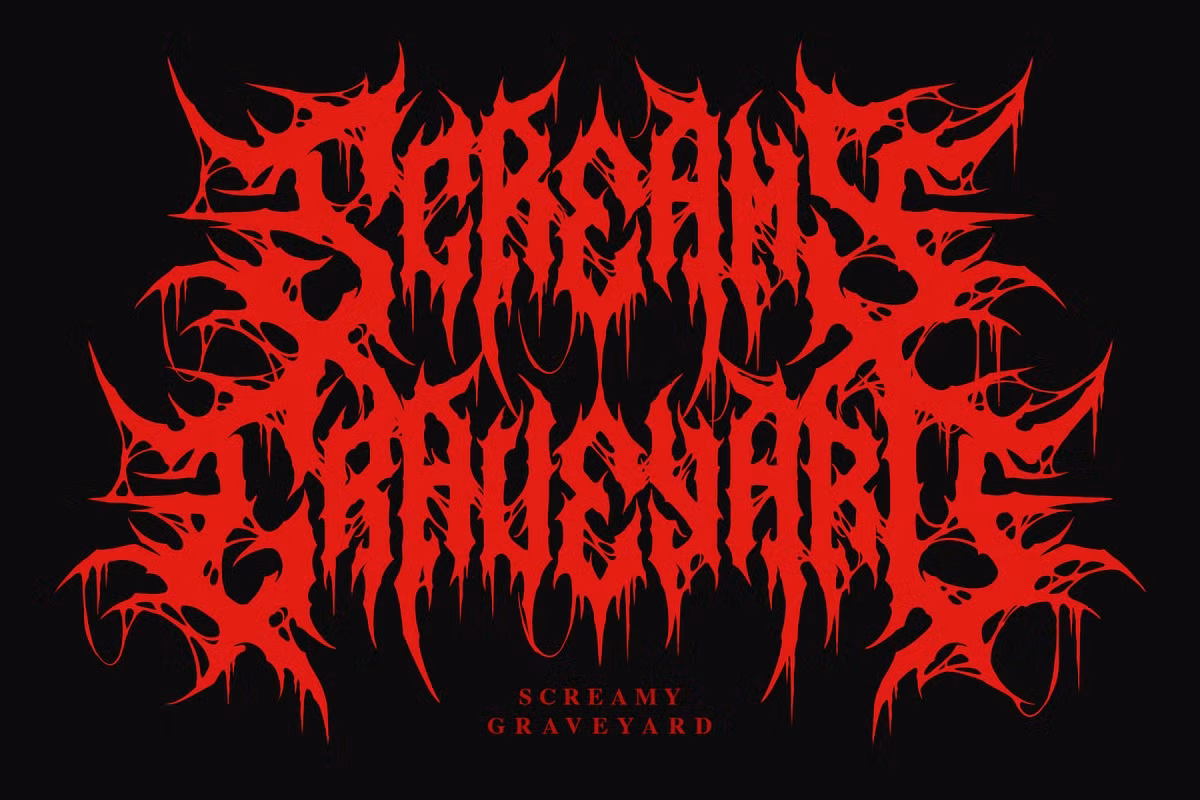
Redeyes | Black Metal Font Vol. 12 Free Download is a powerful and aggressive typeface designed for heavy metal, rock, and other extreme music genres. Featuring sharp, jagged edges and a distorted, gritty aesthetic, this font is perfect for album covers, band logos, concert posters, merchandise, and dark-themed graphic design projects. It captures the raw intensity and rebellious spirit of black metal and similar styles.
Using the Redeyes | Black Metal Font Vol. 12 Free Download adds a rebellious and dark tone to your projects. Whether you're designing album artwork, creating promotional materials for a music festival, or crafting a logo for a metal band, this font delivers a bold and unmistakable presence that conveys power and aggression.